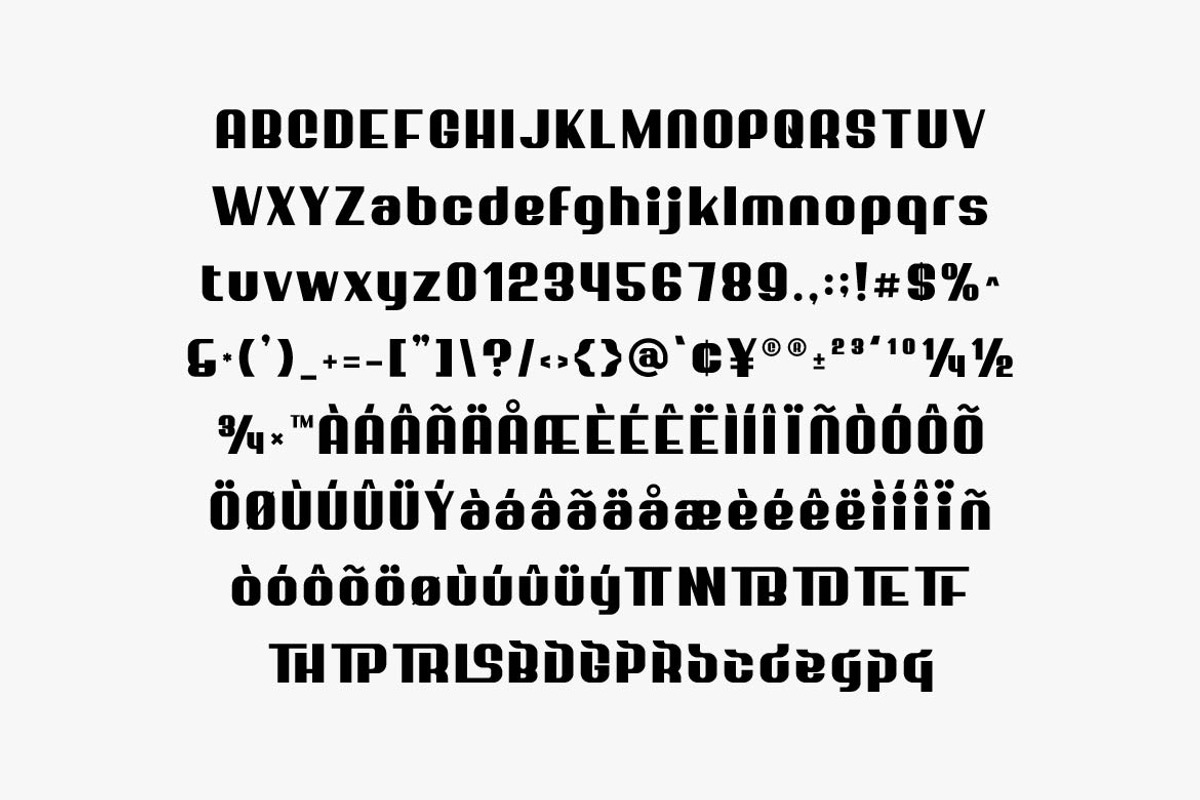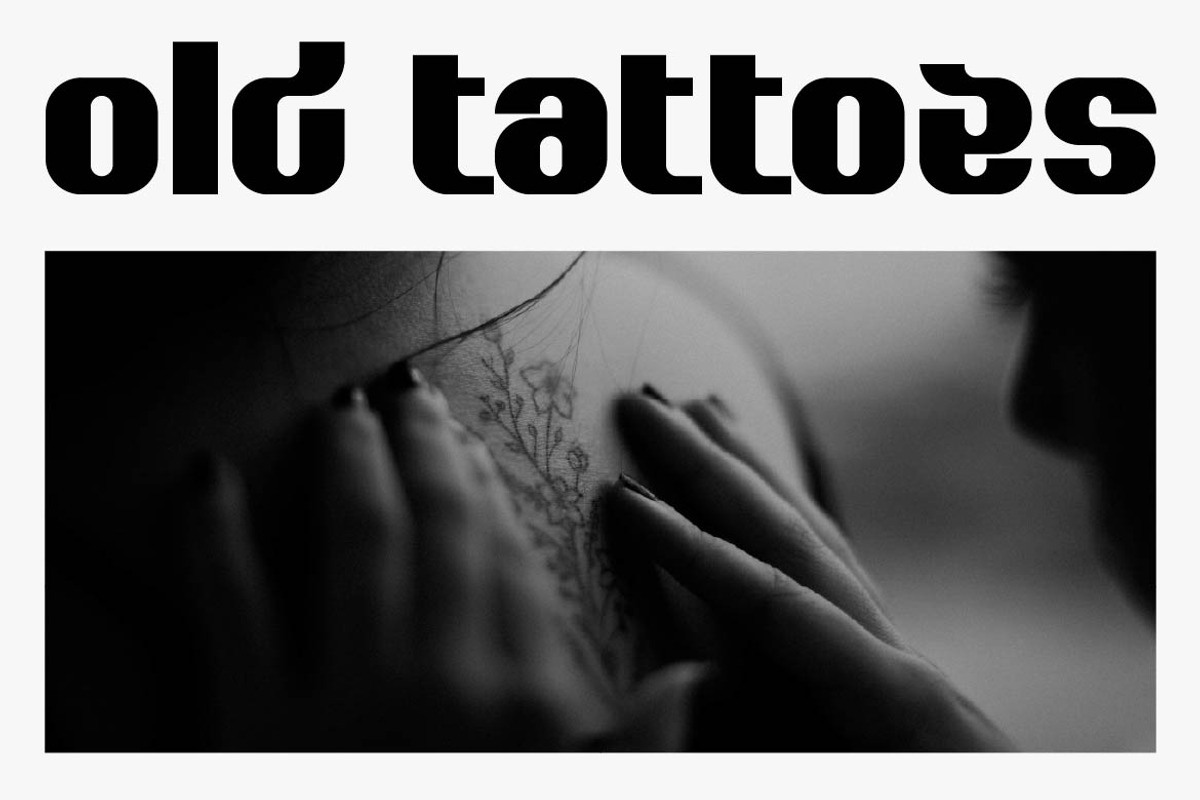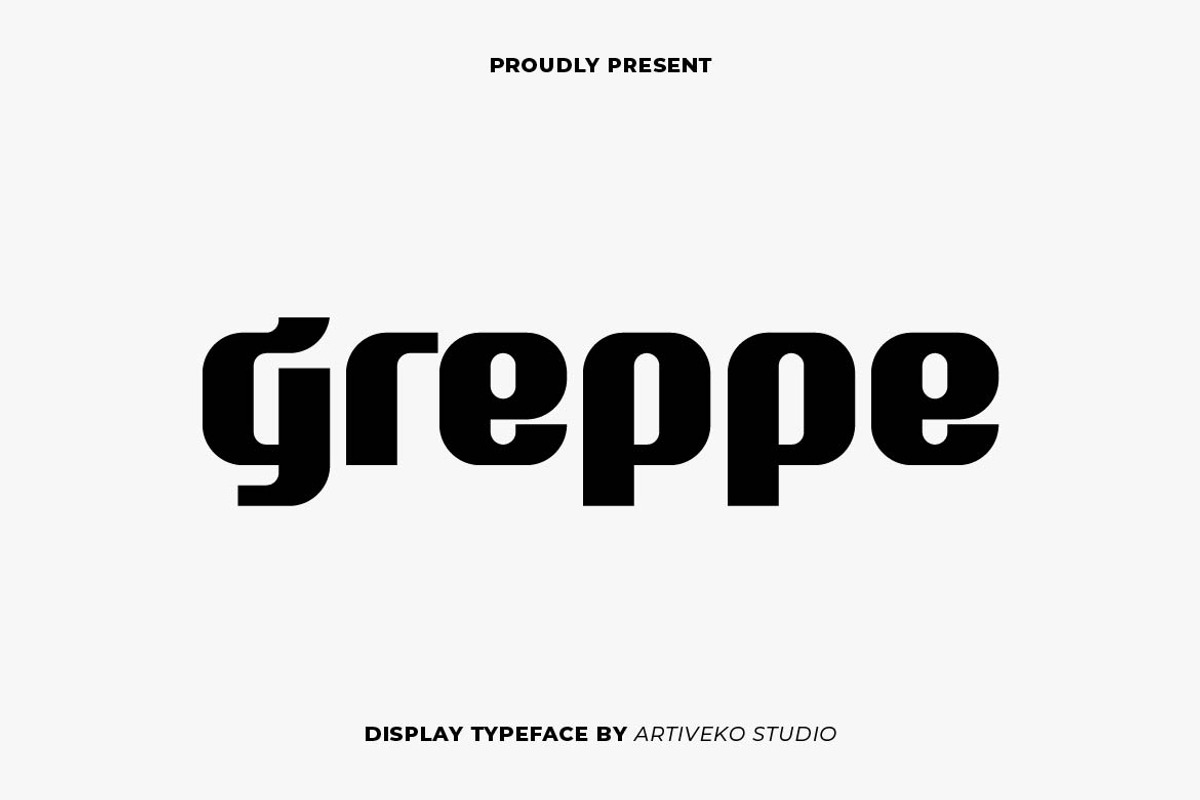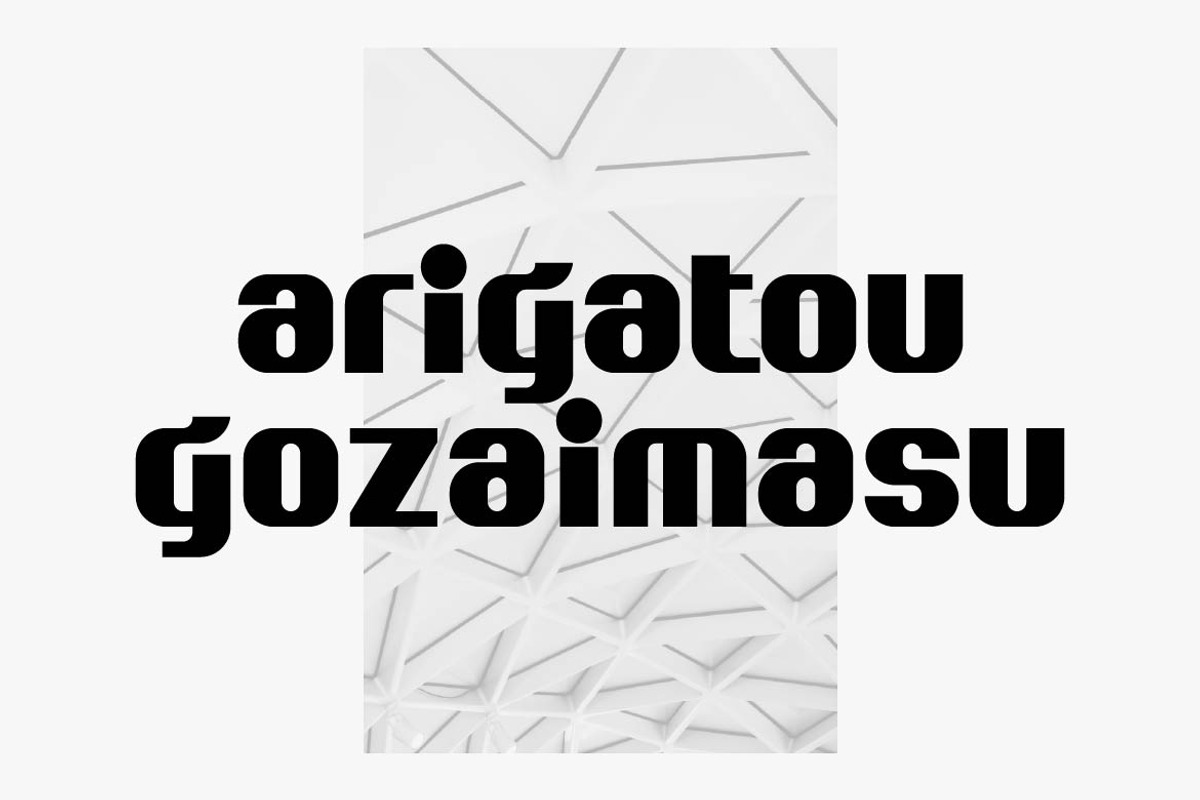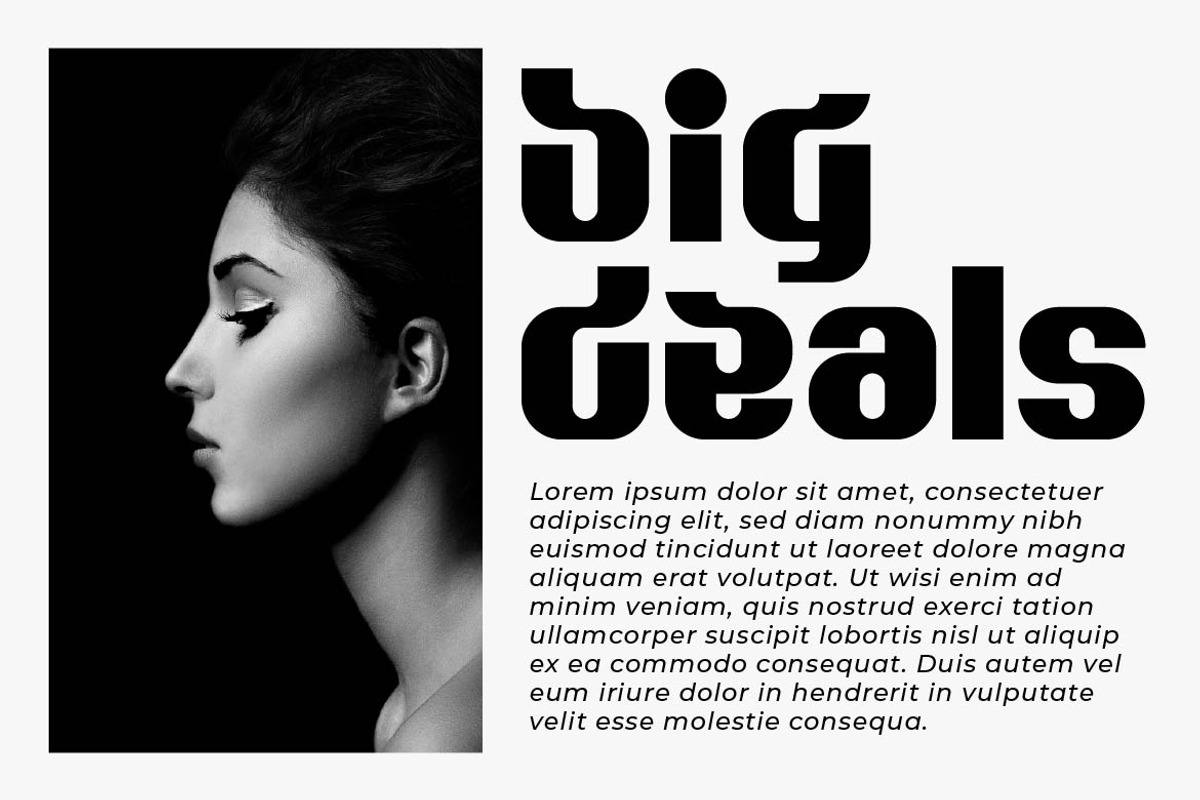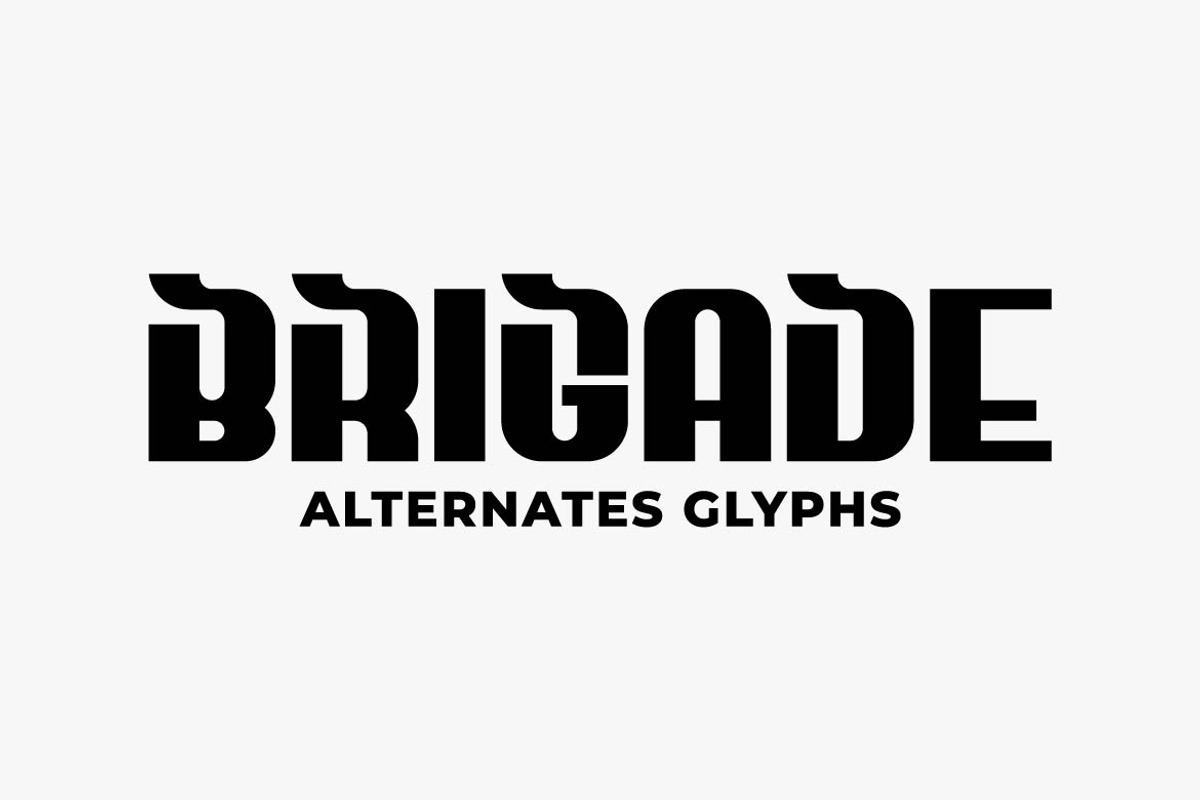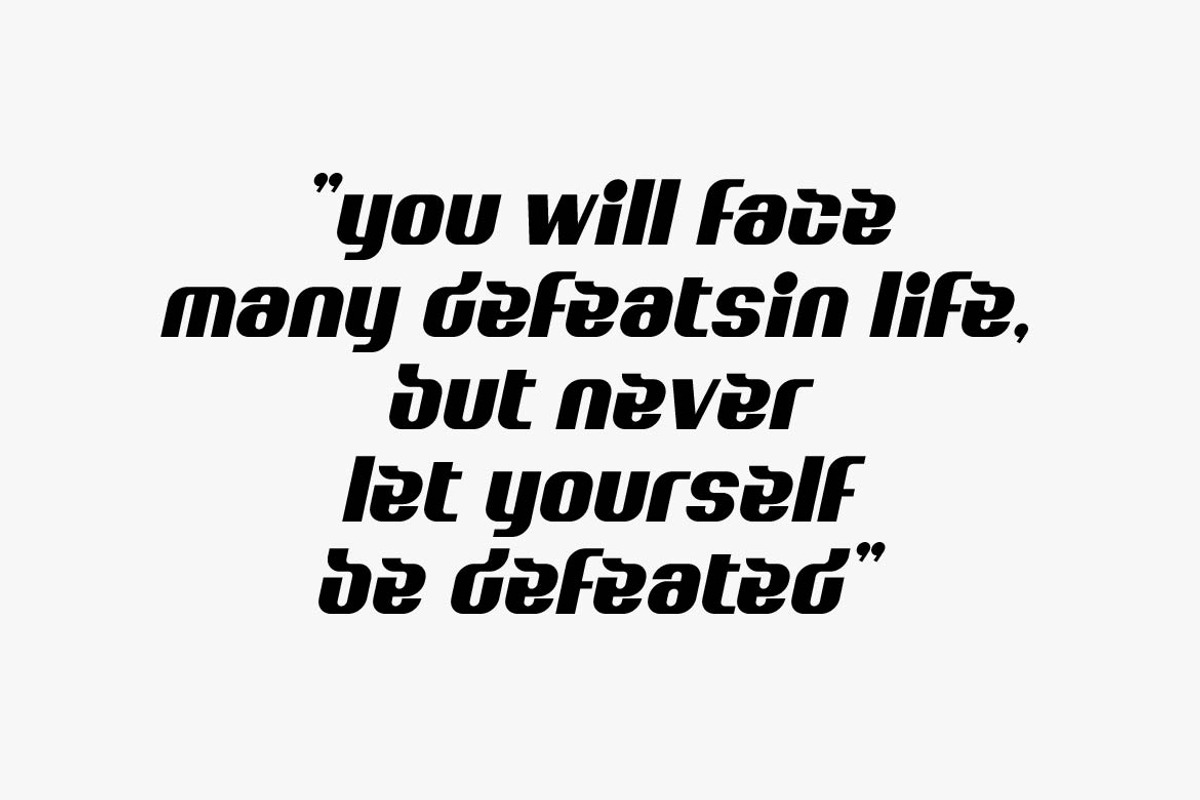
Greppe Stylish Sans Serif
Greppe is a stylish and versatile sans serif font crafted for designers who seek modern creativity with a professional edge. Featuring smooth curves, precise geometry, and balanced proportions, Greppe delivers a clean yet distinctive look — ideal for logo design, brand identity, packaging, posters, and digital graphics.